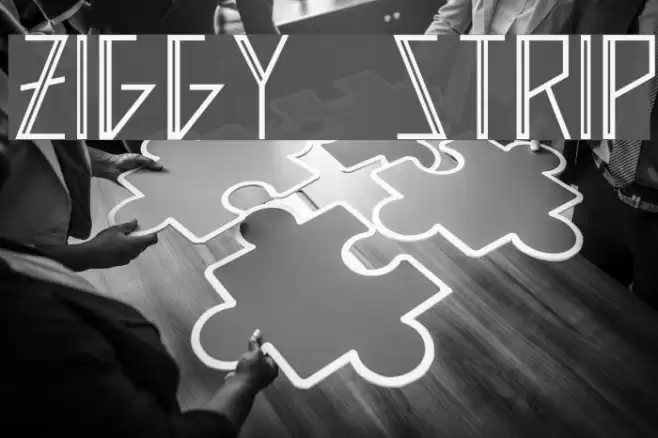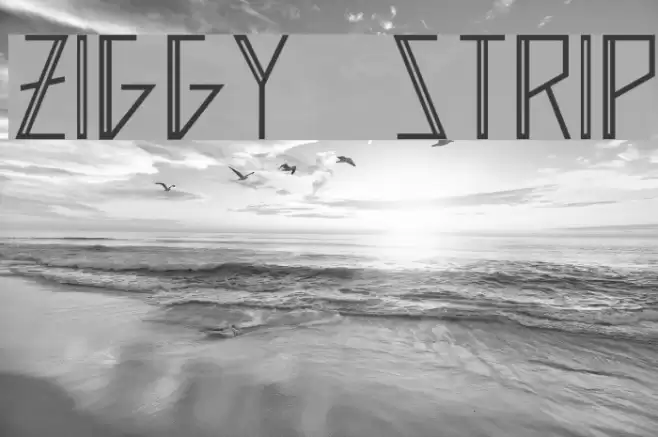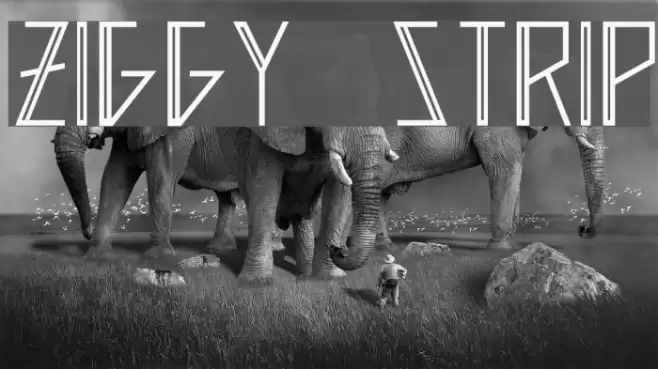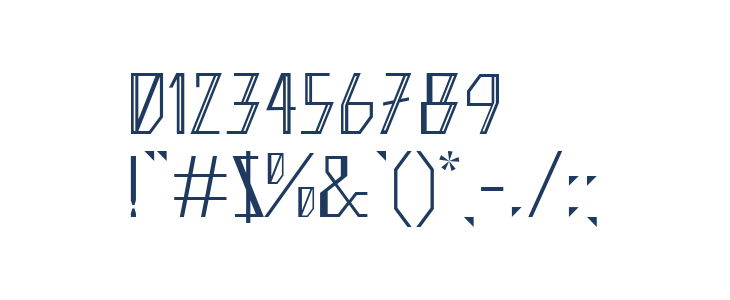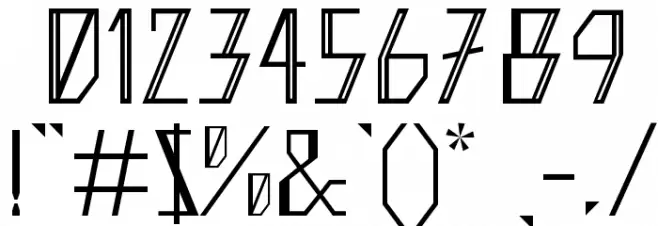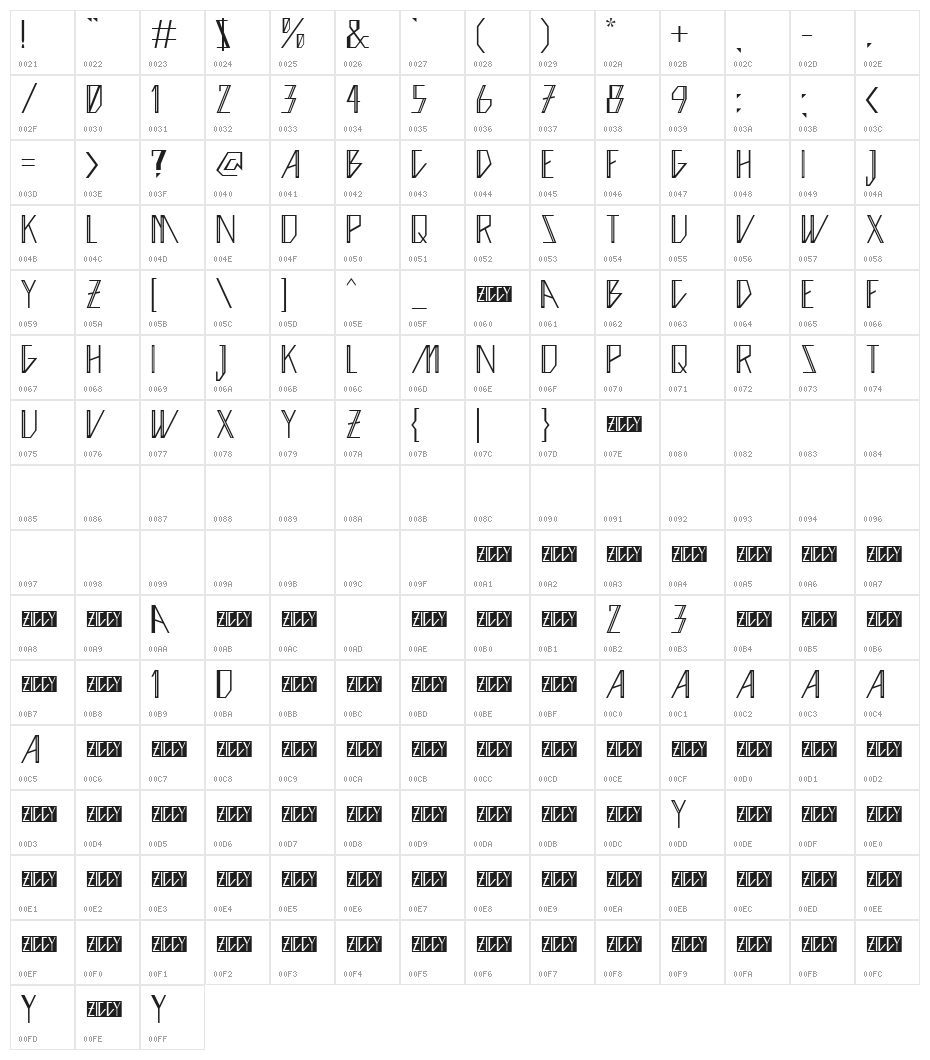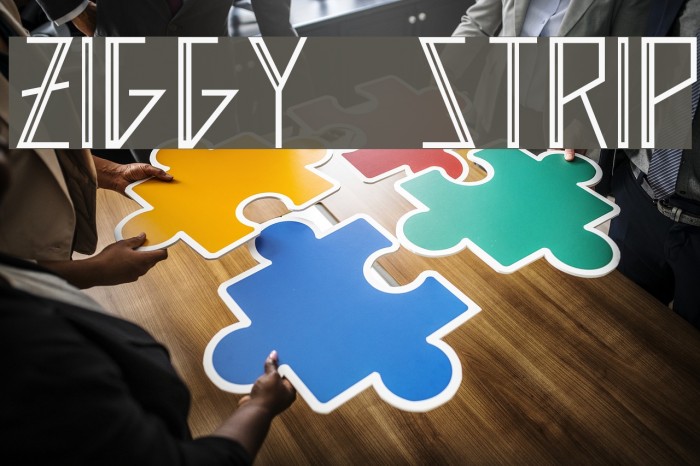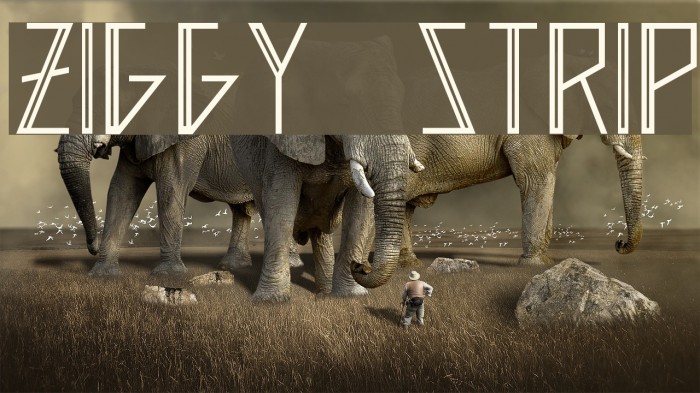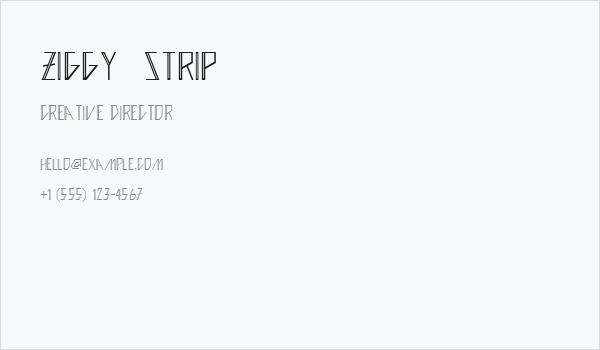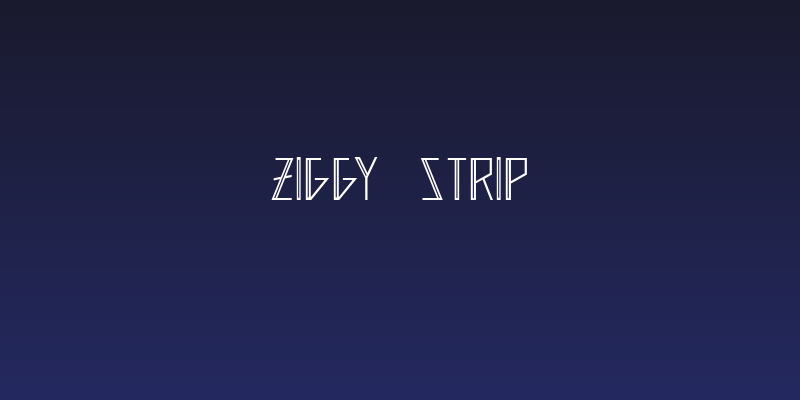
Ziggy Strip Font
Ziggy Strip Description
This font features a unique and edgy design with angular, geometric shapes that create a futuristic and modern aesthetic. The characters are constructed with sharp lines and distinct angles, giving them a dynamic and bold appearance. The uppercase and lowercase letters maintain a consistent style, with a strong emphasis on vertical and diagonal strokes. Numbers and special characters follow the same design principles, ensuring a cohesive look across all elements. The font's distinct style makes it stand out, ideal for projects that require a modern and unconventional touch.
A bold, angular font with a futuristic and geometric design from Uncategorized fonts.
- Proposed Projects: Ideal for sci-fi themed projects, modern branding, album covers, and digital media.